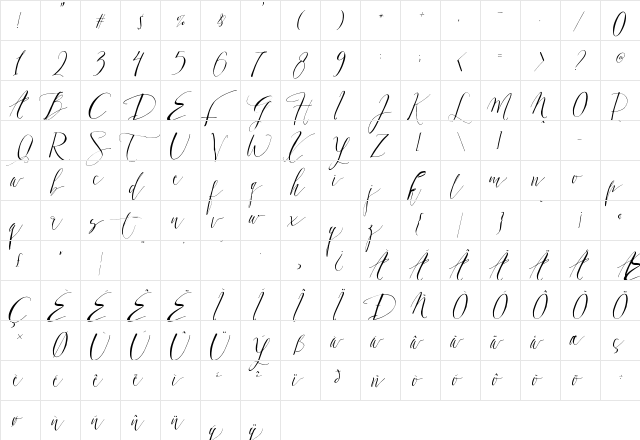
DearlyScript Regular
Design Context for DearlyScript Typeface
DearlyScript flows with the natural rhythm of handwritten lettering, making it ideal for designs that call for warmth and personal expression.
Font Pairing: Combine DearlyScript with a simple geometric sans for maximum contrast — the tension between flowing curves and clean structure is a classic typographic pairing.
Pro Tip: Use DearlyScript for short runs of text — names, titles, or taglines. Extended body copy in script faces tires the eye quickly.